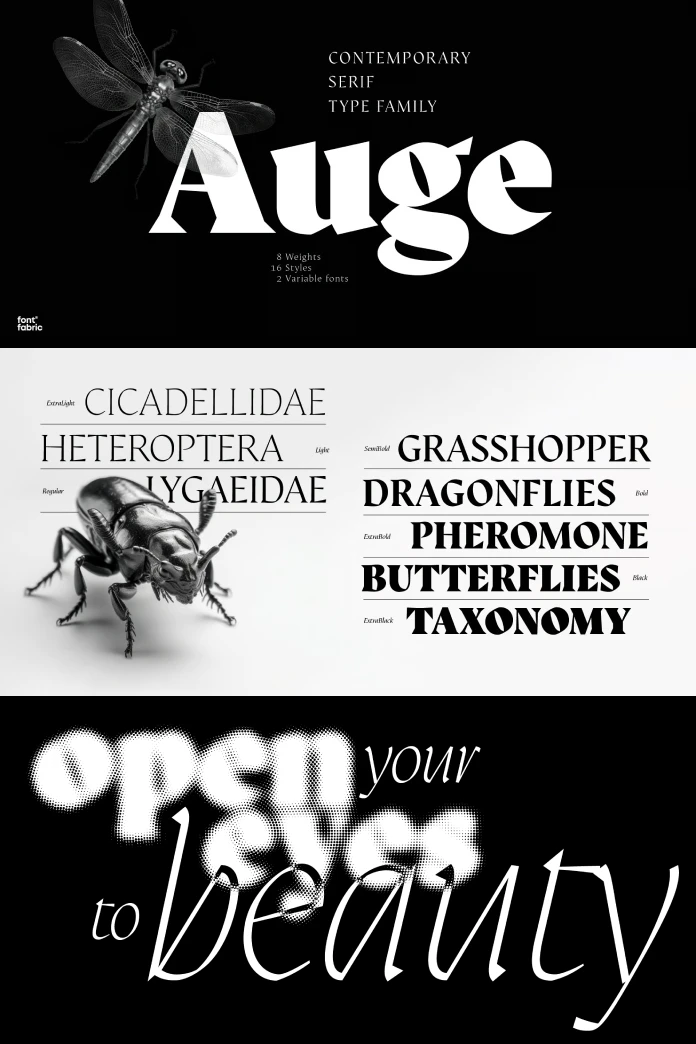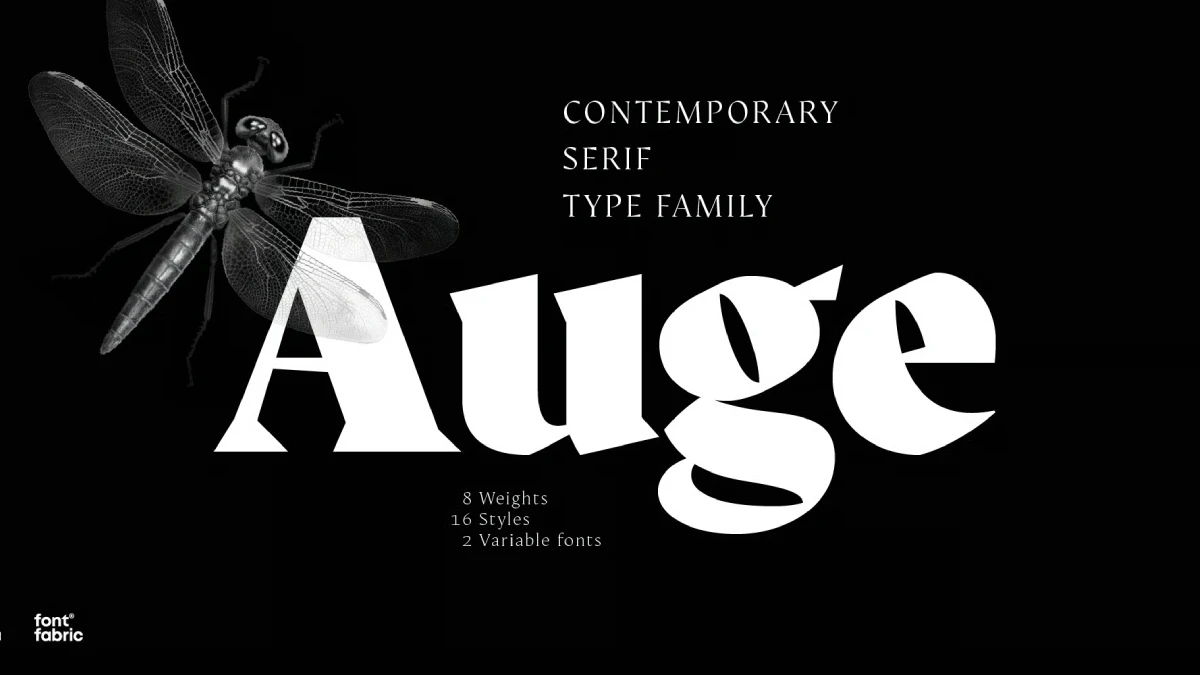
Where Insect Anatomy Meets Elegant Typographic Design: Say Hello to the Auge Font Family.
Many fonts offer aesthetic appeal, but few tell a compelling story. The Auge font family, a striking modern serif from Fontfabric, is one of those rare exceptions. It masterfully intertwines scientific inspiration with artistic expression. This typeface is more than a mere collection of letterforms; it presents a narrative drawn from the intricate world of insects. This unique perspective makes Auge a profoundly relevant choice for contemporary design.
“Auge,” which translates to “eye” in German, invites us into the micro-world of insects. Its design philosophy stems directly from their complex anatomy. Consequently, this inspiration translates into a visual language of rigorous structure, sharp wedge serifs, and crisp details. The Auge font family doesn’t just look beautiful; it carries a message. It encourages designers to appreciate the often-overlooked beauty of these small creatures, reminding us of their irreplaceable role in our ecosystem. This conceptual depth provides a powerful foundation for any design project.
The Collaborative Genesis of the Auge Font Family
The journey of the Auge font family began as a graduation project in 2017 by designer Nikolay Petroussenko. His initial concept was then embraced and cultivated by the Fontfabric type foundry. The project evolved significantly under the expert guidance of Plamen Motev and, later, Viktoria Usmanova. This collaborative effort brought together diverse perspectives, meticulously refining Petroussenko’s original vision. The result is a typeface that is both conceptually rich and technically flawless. The development of Auge itself mirrors a metamorphosis, transforming from a nascent idea into a fully-realized typographic system.
Deconstructing the Design: Why Auge Stands Out
What makes the Auge font family such a compelling choice for designers today? The answer resides in its unique combination of natural inspiration and masterful craftsmanship. It feels simultaneously classic and refreshingly new, giving it remarkable versatility across various creative applications.
Inspired by the Insect World
At its core, Auge’s design DNA is derived from the anatomy of insects. This conceptual anchor is evident in the font’s high-contrast strokes, expressive wedge serifs, and incisive terminals. The design beautifully captures a sense of organic precision, echoing the structured yet delicate forms found throughout the insect kingdom. This profound connection to the natural world gives the Auge font family an underlying strength and an undeniable elegance. It also serves as a subtle yet powerful commentary on the beauty of species whose importance is often underestimated.
A Closer Look at Typographic Details
The Auge font family is a robust and versatile serif typeface engineered for high-impact communication. It is available in 8 distinct weights, from a graceful Light to a powerful Extra Black, each accompanied by a corresponding true italic. This extensive range provides designers with the tools to create sophisticated and clear typographic hierarchies. Therefore, it is ideal for complex editorial layouts, branding systems, and dynamic web design. For even greater control, a variable font version is also available.
Key typographic features include:
- Wedge Serifs: These sharp, precise serifs define the font’s distinctive and memorable character.
- High Contrast: A dynamic tension between thick and thin strokes enhances its expressive and dramatic quality.
- Extensive OpenType Support: The family comes equipped with ligatures, stylistic alternates, and broad language support for both Latin and Cyrillic scripts, making it a professional-grade tool.
How to Wield the Auge Font Family in Your Designs
A typeface’s true value is revealed through its application. The Auge font family excels in projects that demand a voice of sophistication fused with a strong, confident presence. This makes it an invaluable asset in any designer’s toolkit.
Ideal Applications for This Modern Serif
This modern serif typeface is perfectly suited for projects requiring an elegant yet expressive tone. Its unique characteristics make it a superb choice for a multitude of uses.
- Editorial and Luxury Branding: The font’s refined nature is ideal for high-end magazines, book covers, and luxury brand identities that need to convey prestige.
- Packaging and Visual Identity: Auge can imbue product packaging and corporate identity systems with a memorable character and a touch of class.
- High-Contrast Titles and Web Design: Its sharp details and high contrast ensure that headlines are immediately captivating, while its structure maintains legibility in digital environments.
Perfect Pairings and Typographic Harmony
Effective font pairing is essential for creating a cohesive and professional design. The Auge font family harmonizes beautifully with clean, minimalist sans-serifs. For instance, consider pairing it with a geometric sans like Uni Neue or a classic neo-grotesque. This contrast between Auge’s expressive serifs and the simplicity of a sans-serif creates a balanced and thoroughly contemporary aesthetic.
For designers seeking a font with both aesthetic allure and a compelling backstory, Auge is an exceptional choice. It encourages a more thoughtful approach to typography, where the selection of a font can add a significant layer of meaning to a project. How might the subtle, nature-inspired details of the Auge font family influence the tone of your next design?